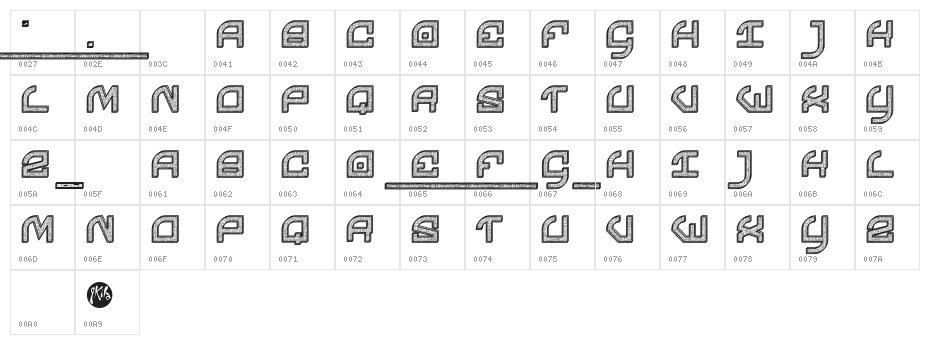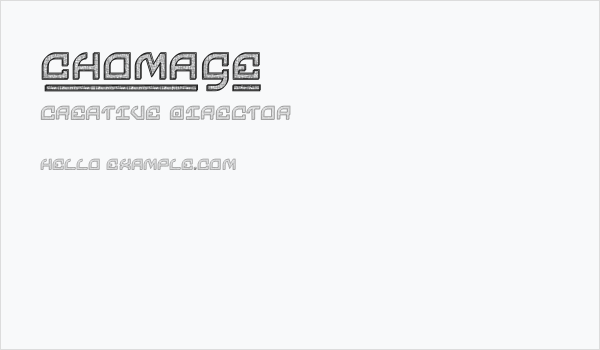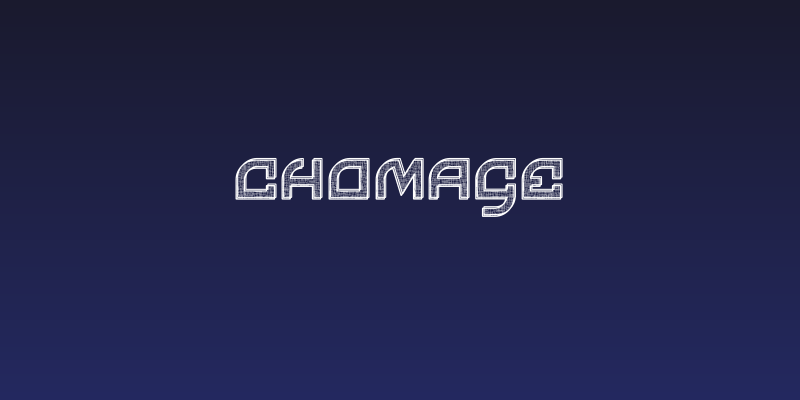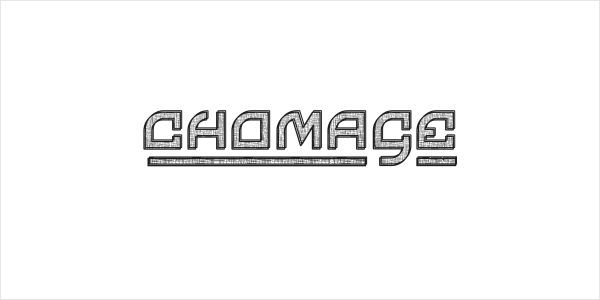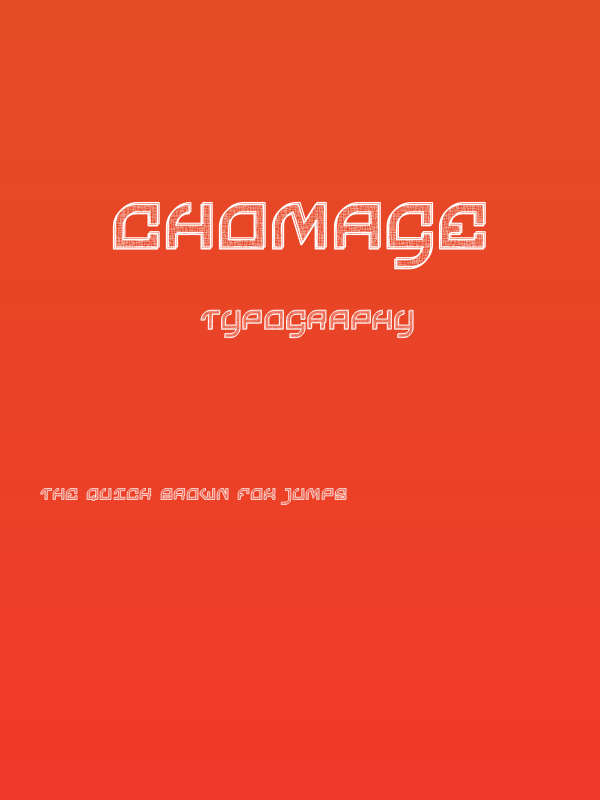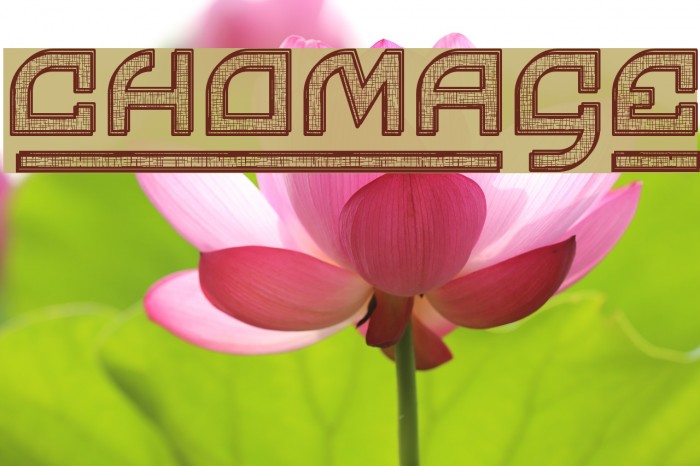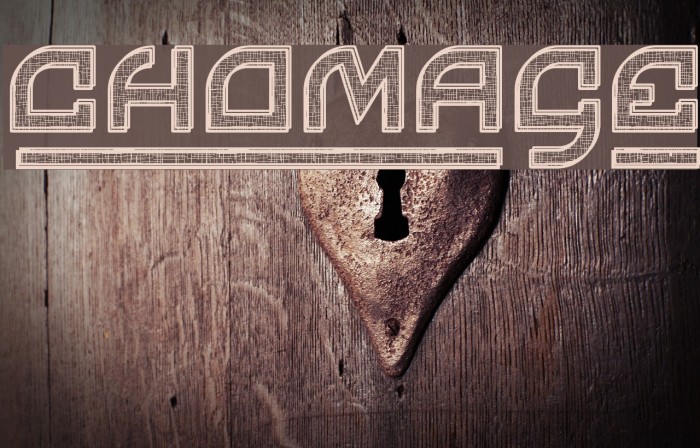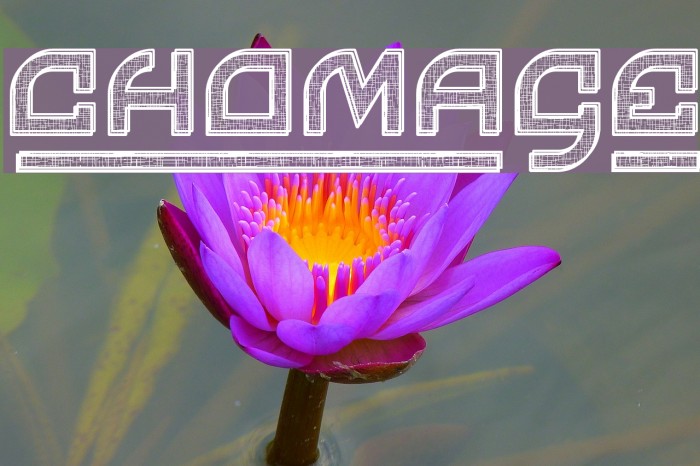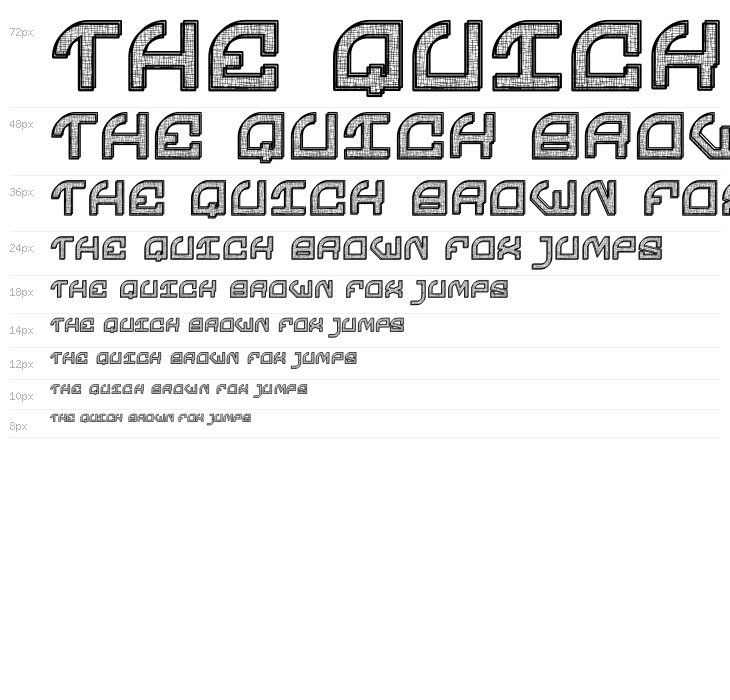
Chomage Font
Chomage Description
This font features a unique, decorative style with a three-dimensional effect, resembling a maze or intricate pattern within each character. The letters are bold and have a distinct outline that enhances their visibility and adds depth. The design is consistent across both uppercase and lowercase letters, maintaining a cohesive look. The font's geometric nature gives it a modern and artistic feel, making it stand out in any design project. Its structured appearance is both eye-catching and versatile, suitable for various creative applications.
| Overall Style | Modern, Artistic |
| Proposed Projects | Ideal for posters, album covers, branding, and any project seeking a bold, artistic touch. |